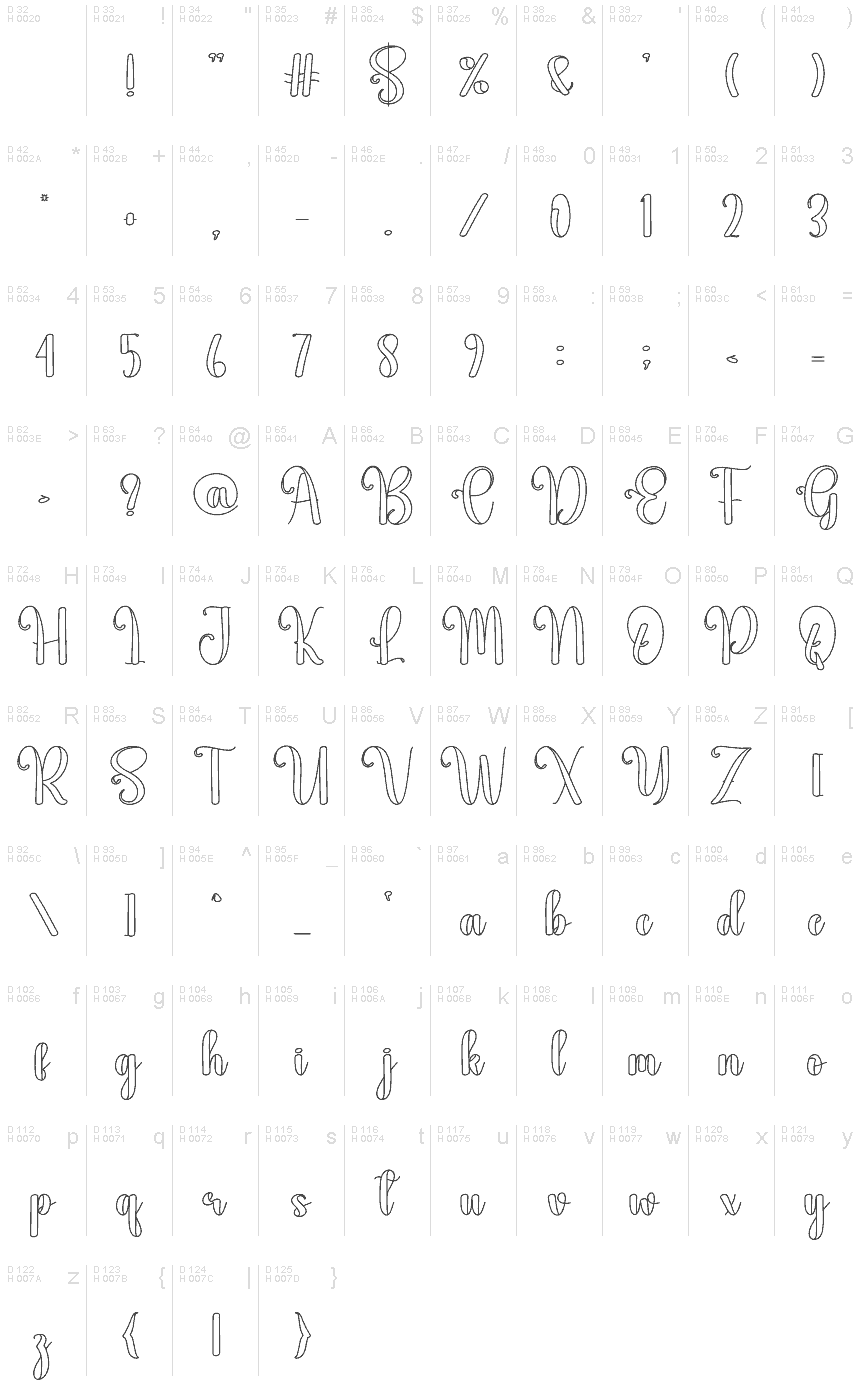
Camel
Camel font by Andi Moz is a free calligraphy font with a flowing script that exhibits a cohesive elegance and artistic sophistication. The decorative flair of each letter can bring an aesthetic appeal to all the words written. Whatever message you are seeking to deliver will flow beautifully when using this calligraphic touch typographic tool.
The font is perfect for book covers, business cards, flyers, invitations, magazine headlines, poster designs, greeting cards as well as web and mobile app designs such as posts and advertisements on social media platforms like Instagram or Facebook.